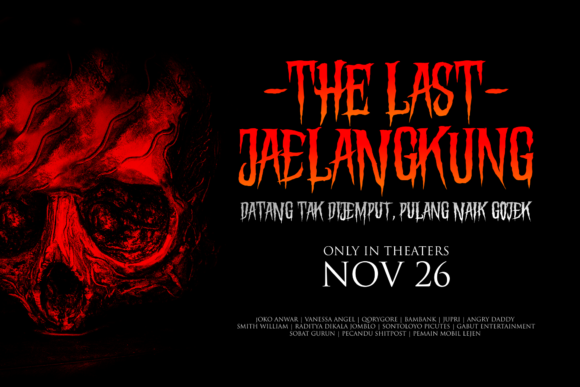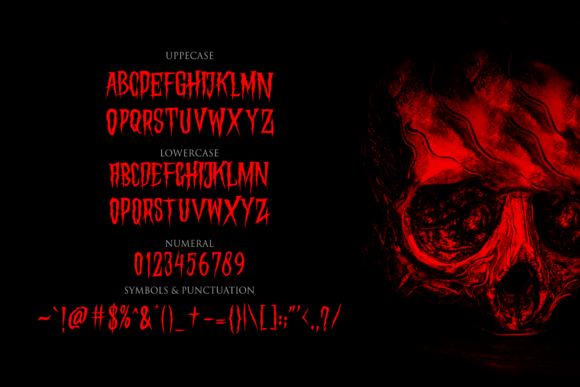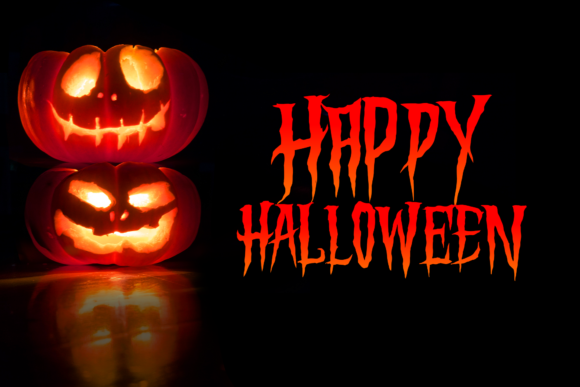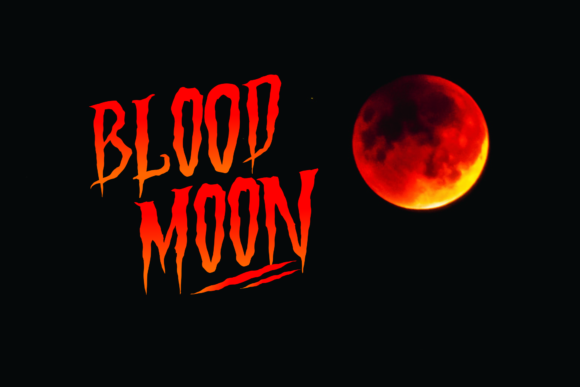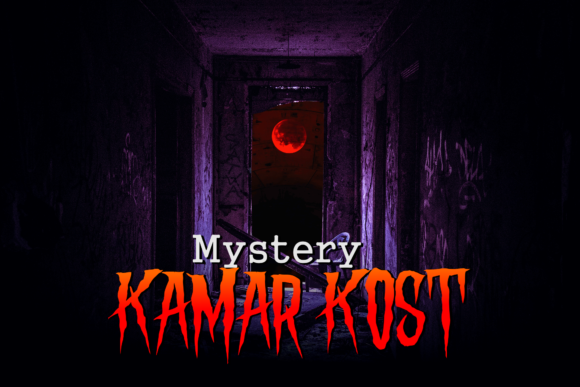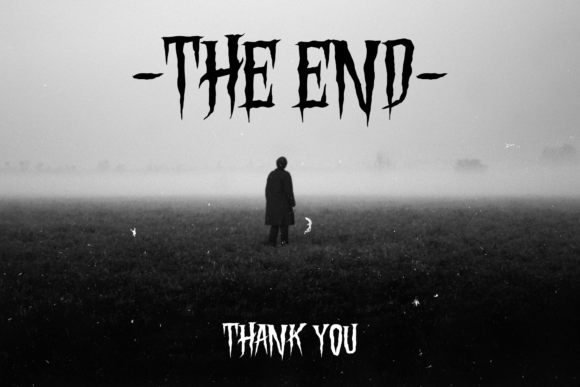
The Perfect Font for a Killer Design
As a designer, there’s nothing quite like the thrill of the hunt for the perfect font to bring a project to life. And what better time to unleash your creativity than during the spooky season? I recall a particular Halloween project where I was struggling to find a font that captured the essence of the season – something that would make my design truly scream with horror. That’s when I stumbled upon the Hungry Hunters Font, a handmade horror font that would change the game for me.
The Hungry Hunters Font is a masterpiece designed specifically for creating spooktacular designs that will send chills down your audience’s spines. Whether you’re crafting Halloween decorations, designing horror movie posters, or creating t-shirts that will make everyone shiver, this font is the perfect companion. Its unique, handmade style adds an extra layer of authenticity to your designs, making them truly stand out from the crowd.
Hungry Hunters Font Key Features
- Unique Characteristics: Hungry Hunters Font features a unique, hand-drawn design with a mix of bold and playful lines, making it perfect for creating eye-catching and attention-grabbing designs.
Hungry Hunters Font Review
I was excited to dive into the Hungry Hunters font, but my experience was a mixed bag. Here’s what I think:
- The font has a unique, rustic charm that would be perfect for outdoor or nature-themed designs.
- The bold weight is great for headlines, and the italic version adds some nice flair.
- The font is highly legible, even at smaller sizes, making it a good choice for body text.
- The font feels a bit inconsistent, with some letters feeling more rough-hewn than others.
- The x-height is a bit on the small side, which can make the font feel cramped in certain contexts.
- The font doesn’t have as many weights or styles as I’d like, which can limit its versatility.
Overall, I think Hungry Hunters is a solid choice for designers who are looking for a rustic, outdoorsy feel. While it’s not perfect, its unique charm and high legibility make it a great option for the right project. Just be aware of its limitations, and be prepared to get creative if you need more flexibility.
The “Hungry Hunters Font” is ideal for designs that require a bold, playful, and adventurous feel. Some common use cases include:
- Outdoor and sports-themed designs
- Adventure and travel marketing
To get the most out of the “Hungry Hunters Font”, try the following:
- Pair it with bold and bright colors to create a striking visual